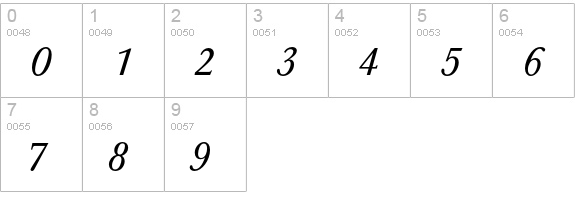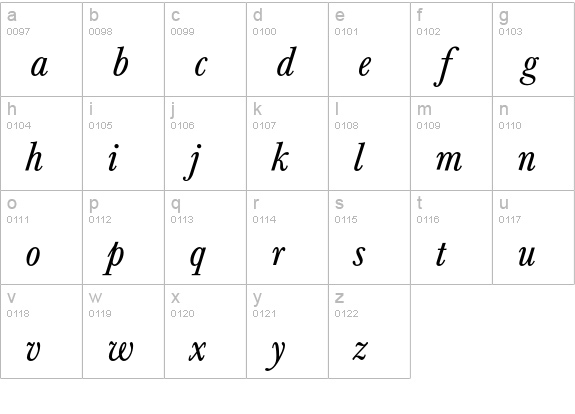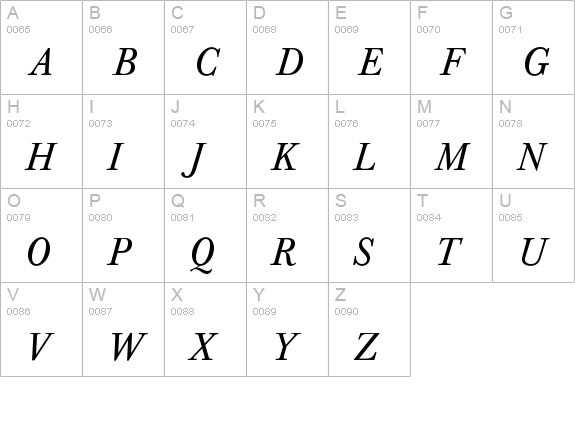
Baskerville T Regular Italic Font Details
Baskerville T Regular Italic is the standard, neutral, italic variant in the Baskerville typeface family \xE2\x80\x94 well suited to general body text, paragraphs, and standard typographic work.
Baskerville T Regular Italic font is a timeless and elegant typeface that exudes sophistication and class. Its slanted, italicized design adds a touch of flair and style to any text it graces. The delicate curves and precise lines of this font make it perfect for formal documents, invitations, and editorial design. What sets Baskerville T Regular Italic font apart is that it is not only beautiful but also free to download. You can easily access this stunning font at FontsMarket.com without any cost. Whether you're a designer looking to elevate your projects or someone wanting to add a touch of refinement to your personal creations, Baskerville T Regular Italic font is an excellent choice. Download it today and bring a touch of timeless elegance to your work.